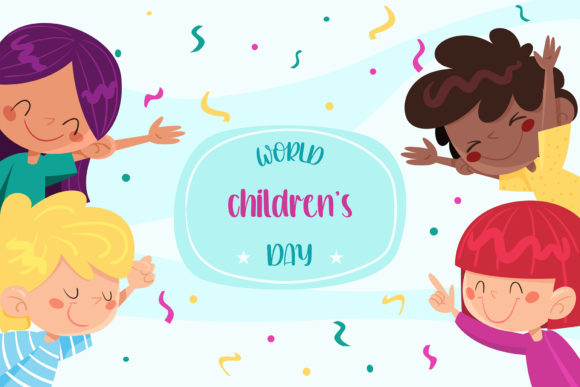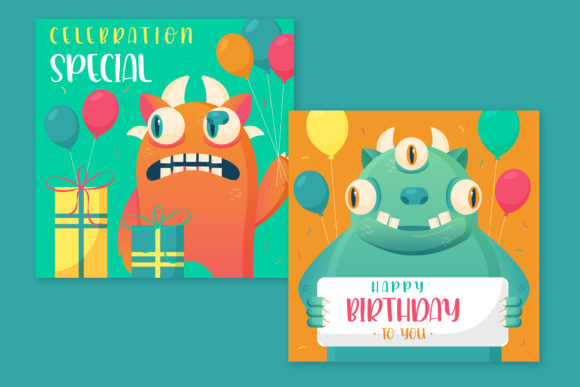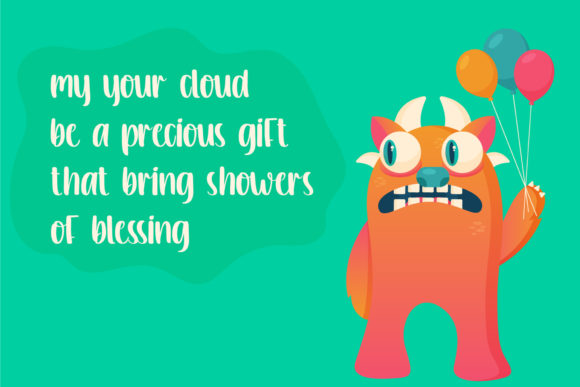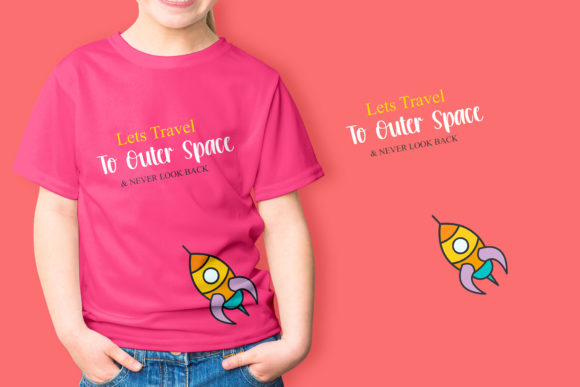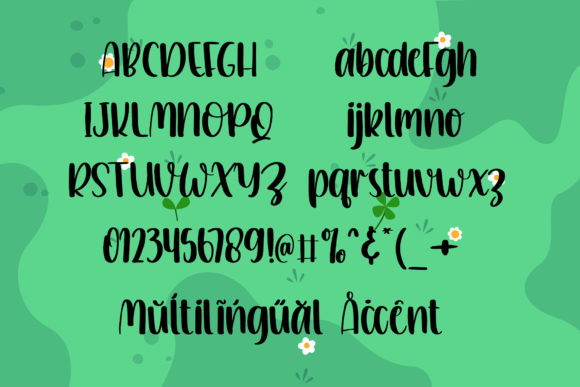
Unleashing Joy with the Cuteness Space Font
Have you ever sat down with a blank sheet of paper and a pen, waiting for inspiration to strike? For many designers, this is the moment when creativity flows and ideas start to take shape. As you begin to sketch out your vision, you start to imagine the perfect font to match your design’s personality – and that’s where the Cuteness Space Font comes in.
This sweet handwritten font is inspired by the innocent and cheerful design of children, making it a perfect fit for children-themed designs. When paired with bright and bold colors, the Cuteness Space Font brings a playful touch to any project. For designers, this font is a valuable tool in their arsenal, offering a unique and engaging way to connect with their audience.
Whether you’re working on a children’s book, a nursery decor design, or a fun campaign for a family-friendly brand, the Cuteness Space Font is sure to add a touch of whimsy and joy to your work.
Cuteness Space Font Key Features
- Character Set: This font includes a comprehensive set of characters, including Latin, Cyrillic, and Greek alphabets, as well as a range of punctuation and symbol glyphs.
- Unique Characteristics: The font features a distinctive, whimsical design with a mix of rounded and angular shapes, creating a playful and eye-catching aesthetic.
Cuteness Space Font Review
I’ve had the chance to dive into the Cuteness Space Font, and I’m excited to share my honest thoughts on it.
- Unique aesthetic: The Cuteness Space Font offers a quirky and playful vibe that’s perfect for projects that require a touch of whimsy.
- High-quality glyphs: The font includes a wide range of glyphs, including punctuation marks and numerals, making it a solid choice for everyday use.
- Customization options: The font comes with a range of customization options, allowing designers to tailor the look to their specific needs.
- Limited language support: The Cuteness Space Font currently only supports a limited range of languages, which may be a concern for designers working on projects that require multiple language support.
- Lack of bold and italic styles: While the font includes a range of customization options, it’s missing bold and italic styles, which may be a drawback for designers who rely on these styles for emphasis.
Overall, the Cuteness Space Font is a solid choice for designers looking for a unique and playful font. While it has some limitations, its high-quality glyphs and customization options make it a great addition to any design toolkit.
Here are some tips to help you get the most out of the Cuteness Space Font:
- Use the font in combination with other cute and playful elements, such as illustrations or emojis.
- Use the font for headings and titles to create a sense of hierarchy and emphasis.
The Cuteness Space Font is perfect for:
- Children’s books and educational materials.